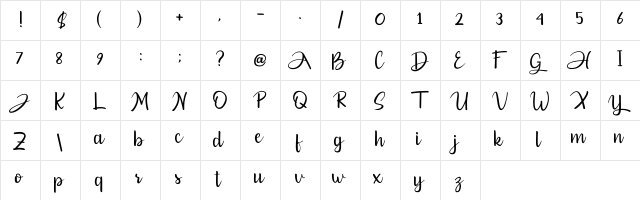
Silvermain Regular
Design Context for Silvermain Typeface
Silvermain is a composed and adaptable typeface that performs quietly and consistently across a wide range of design contexts.